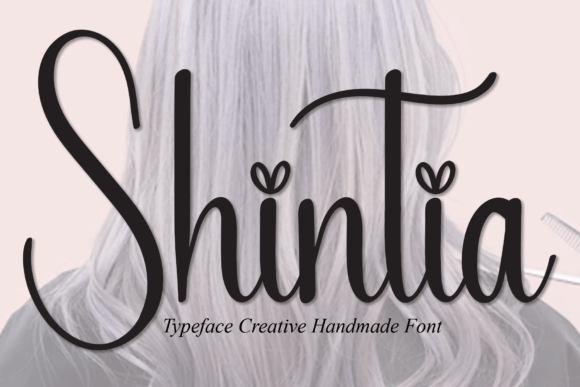
Step into the realm of sophistication and elegance with Shintia Font, a captivating script font that exudes charm and personality. Shintia is a beautiful handwritten script, meticulously crafted to bring your creative visions to life. Each letter dances across the page, adding a touch of artistry to your designs.
Immerse yourself in the world of Shintia and let your imagination soar. This font is the epitome of versatility, seamlessly adapting to a myriad of projects. From wedding invitations that radiate love and romance to heartfelt greeting cards and elegant branding materials, Shintia transforms your words into works of art.
Envision the joy of your wedding day, the moment when your vows are exchanged and love fills the air. Shintia captures the essence of this special occasion with its graceful curves and delicate flourishes. Your wedding signs will be imbued with a touch of magic, guiding your guests through this momentous day.
Shintia is not merely a font; it's an experience that awakens the senses. Its fluid strokes invite you on a journey of creativity, inspiring you to explore new possibilities and express yourself with authenticity. Whether you're a seasoned designer or just starting your creative journey, Shintia will be your faithful companion, guiding you toward greatness.
Indulge in the beauty of Shintia and watch as your designs blossom into masterpieces. Join the countless creatives who have embraced Shintia and transformed their projects into works of art. Embrace the power of this exquisite font and embark on a creative adventure that will leave you breathless.